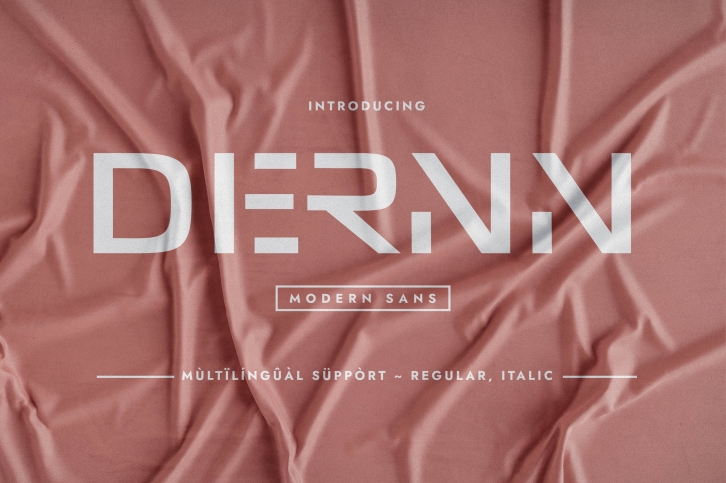
Dernn is a modern, simple, clean and minimalistic sans serif typeface. its modern revolutionary glyphs constructions make it a vital choice when you are desiging themes that require revolutioneray animated touch while maintining the minimalistic effect. It can be used for games titles design, film posters, packaging,cosmetics, perfums, etc. Use it in your creative idea so you can notice how much stand out!